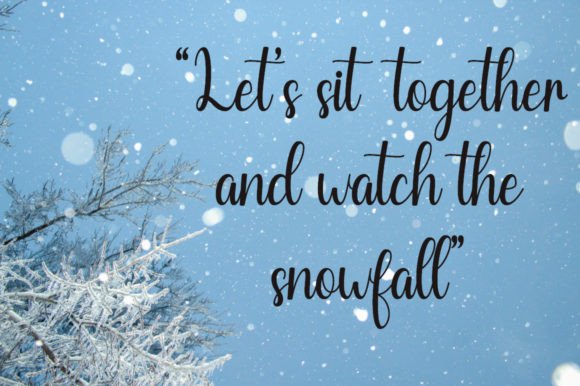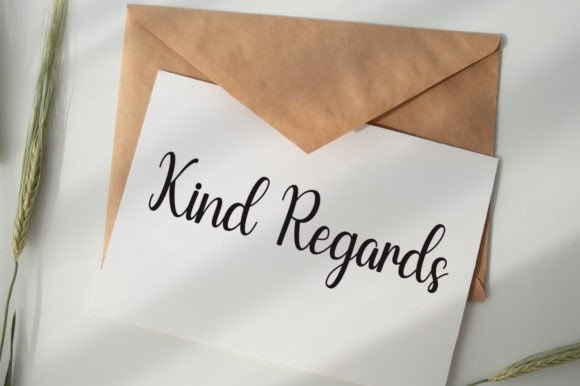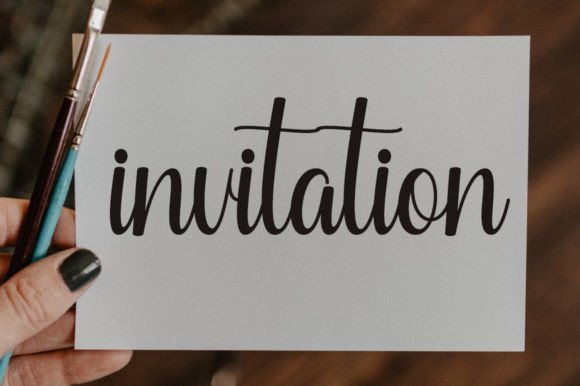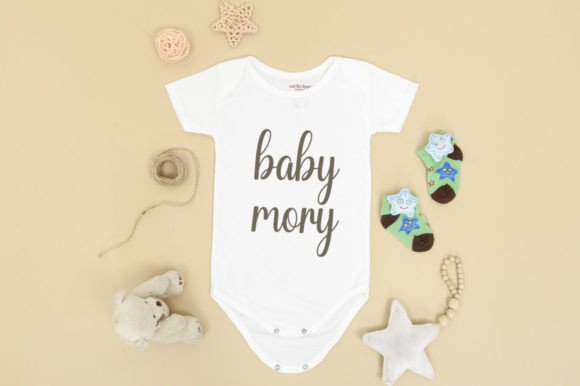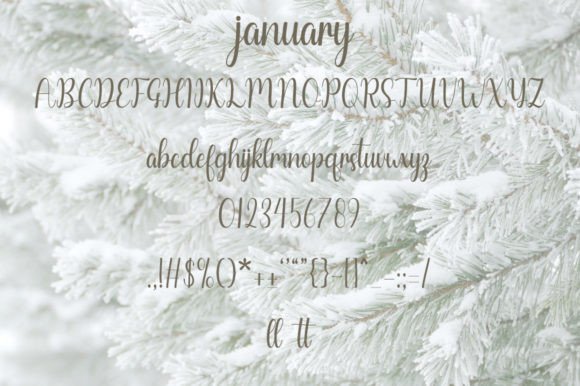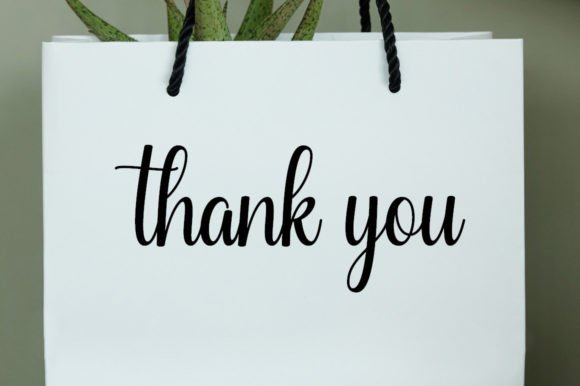
January Font
Introduce Elegance with the January Handwritten Font
January Handwritten Font is a delicate and graceful typeface that captures timeless beauty with every stroke. Designed to convey sophistication and warmth, this flowing handwritten script is ideal for creatives who want to add a refined and personal touch to their work.
From wedding invitations to branding materials, January enhances any project with its classy, hand-drawn charm.
A Font That Reflects Elegance and Personality
January stands out with its elegant curves, consistent letterforms, and a natural flow that feels both modern and timeless. The characters appear to glide across the page, evoking a sense of handwritten sincerity and aesthetic finesse.
Its stylish strokes are well-suited for:
• Wedding invitations and event stationery
• Elegant brand logos and visual identity kits
• Fashion or beauty-related projects
• Personal blogs and social media content
• Art prints, quotes, and greeting cards
Whether you’re working digitally or in print, the font’s balance of personality and clarity ensures a beautiful end result.
Versatile and Readable at Every Size
What makes January so special is not just its beauty, but also its versatility. While it looks stunning in large display formats such as logos or headers, it remains readable in smaller applications like subheadings and product labels.
Its flowing structure maintains consistency across various platforms and design tools. Whether you’re using Adobe Illustrator, Canva, or a web design builder, the January font integrates seamlessly into your creative workflow.
Why Designers Choose January Font
Designers and creatives frequently reach for the January font due to its unique blend of style and usability. Here are some key highlights:
• Refined elegance in every letter
• Natural handwritten appearance with modern flair
• Timeless script design perfect for a variety of uses
• High readability across devices and sizes
• Instant visual charm for emotional and professional impact
Furthermore, the font’s subtle personality allows it to complement many design aesthetics—from romantic to minimalist.
In conclusion, the January Handwritten Font is more than just a typeface—it’s a storytelling tool. Its elegant flow, distinct character, and modern charm make it a perfect choice for creatives looking to elevate their design work.
Whether you’re designing a luxurious wedding suite, crafting a stylish brand identity, or adding a heartfelt quote to a digital graphic, January helps your message feel sincere, beautiful, and unforgettable.
Let the timeless elegance of January inspire your next masterpiece.